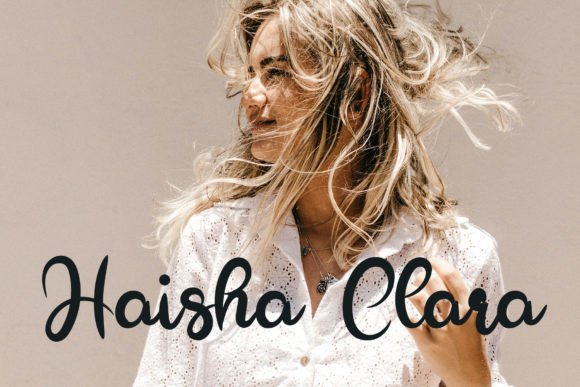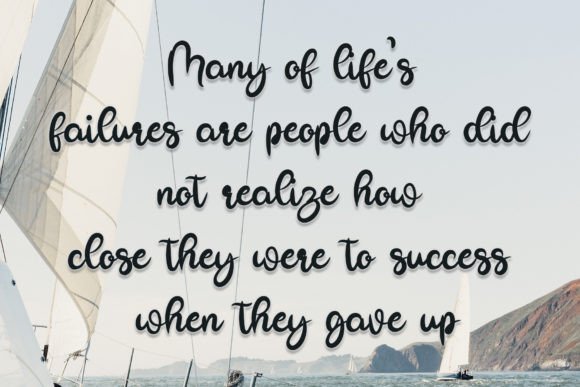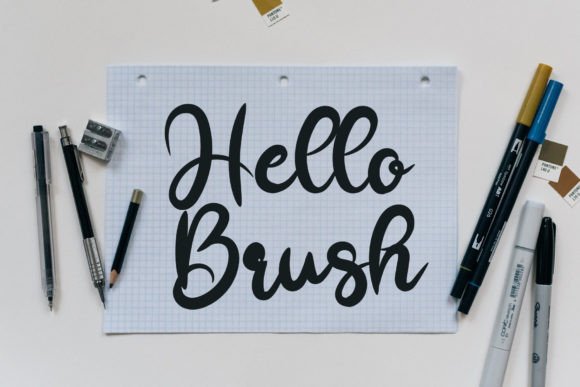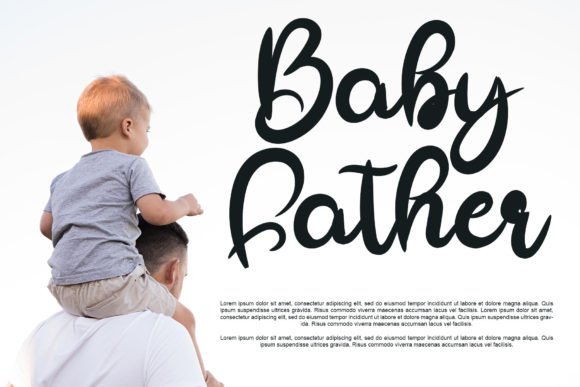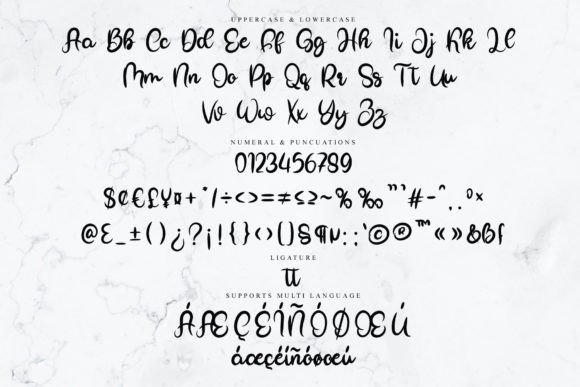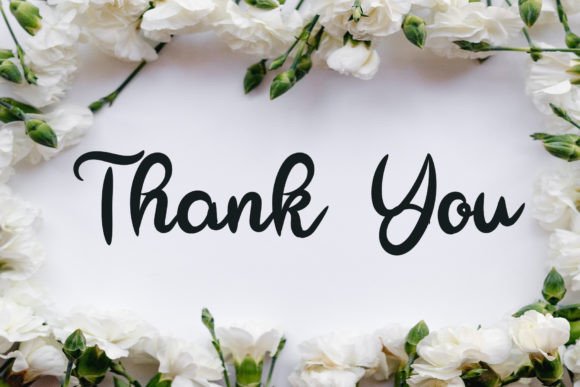
The Magic of Describe: A Luxurious Handwritten Font
I’ll never forget the design project that led me to Describe, a sweet and beautiful handwritten font. I was working on a luxury brand campaign, and my client requested a custom font that would evoke elegance and sophistication. As I scoured the internet for the perfect match, I stumbled upon Describe, and it instantly stole my heart! ✨
Featuring characters that dance along the baseline, Describe adds a touch of luxury to any design project. In this article, I’ll share my honest review, a practical guide on how to use it, and some valuable insights into its design and similar fonts.
Honest Review: What I Love and Some Quirks
- ✨ Elegant and luxurious feel, perfect for high-end designs
- ✅ Beautifully crafted characters with a playful touch
- ⚡️ Highly legible, even at small font sizes
- 🎨 Versatile and suitable for various design projects, from branding to invitations
Some Quirks to Consider
- 🤔 Limited availability of certain characters, such as ligatures
- ⚠️ May not be the best fit for very formal or traditional designs
A Practical Guide: Using Describe in Your Designs
The Story Behind Describe
Describe was crafted with love by a talented type designer who aimed to create a font that would evoke a sense of luxury and sophistication. The designer’s inspiration came from classic calligraphy and handwritten scripts, with a modern twist. The result is a beautiful, elegant font that’s perfect for adding a touch of glamour to your designs.
Q: What type of designs is Describe best suited for?
A: Describe is versatile and can be used for various design projects, such as branding, invitations, and luxury campaigns.
Q: Is Describe a difficult font to read?
A: No, Describe is highly legible, even at small font sizes, making it perfect for body text and headlines.